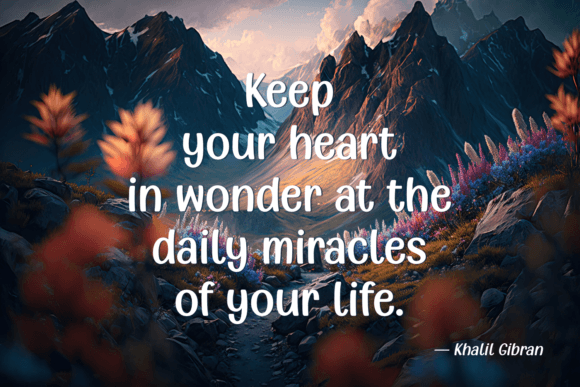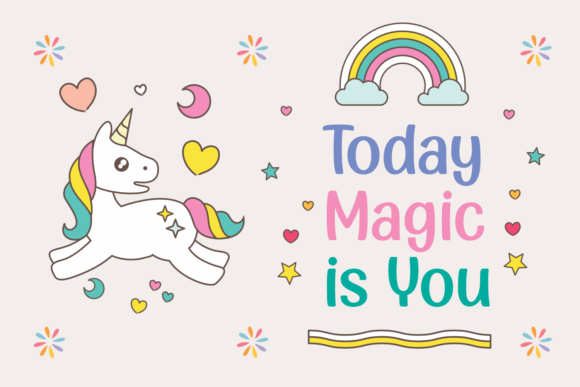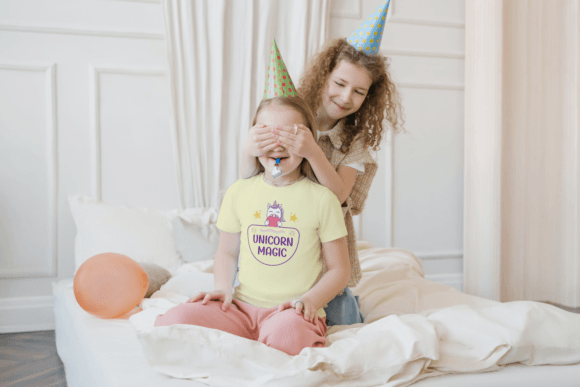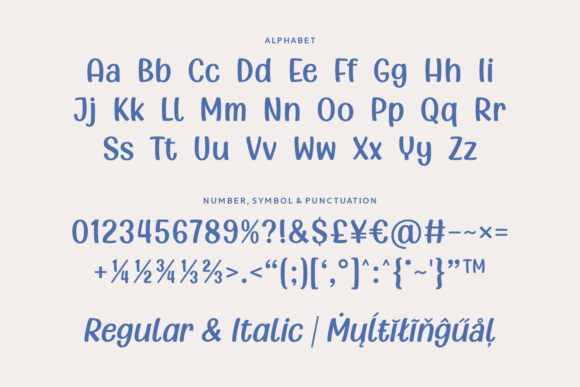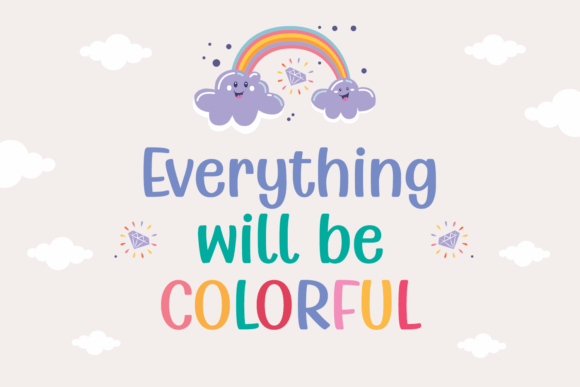
Introducing Daily Wonder Font: Adding a Playful Touch to Your Designs
Are you looking for a font that can add a special playful touch to your design ideas? Look no further than the Daily Wonder font! This beautifully crafted font is designed to bring a sense of playfulness and handmade charm to any project. In this article, we’ll take a closer look at the Daily Wonder font, its features, and how you can use it to take your designs to the next level.
A Playfully Handmade Font
The Daily Wonder font is a masterfully designed font that feels playfully handmade. Its unique and charming lettering style makes it perfect for adding a personal touch to your designs. Whether you’re working on a DIY project, a branding campaign, or a craft project, this font is sure to bring a smile to your face. The font’s playful feel is perfect for designers and crafters who want to add a touch of whimsy to their work.
The Daily Wonder font is incredibly versatile and can be used for a wide range of design projects. From greeting cards and invitations to branding and packaging, this font can add a special touch to any design idea you can think of. Its playful and handmade feel makes it perfect for:
- DIY projects and crafts
- Blog and website design
Masterfully Designed
The Daily Wonder font is designed to be a true favorite among designers and crafters. Its unique lettering style and playful feel make it a joy to use. The font is carefully crafted to ensure that it is easy to read and looks great in a variety of sizes and colors. Whether you’re working on a large-scale design project or a small craft project, this font is sure to become a go-to choice.
Bring Your Creative Ideas to Life
The Daily Wonder font has the potential to bring each of your creative ideas to the highest level. Its playful and handmade feel makes it perfect for adding a personal touch to your designs. With this font, you can:
- Create unique and eye-catching designs that stand out from the crowd
- Add a personal touch to your projects and make them more relatable
- Experiment with different design styles and ideas
- Bring a sense of playfulness and fun to your designs
Tips for Using Daily Wonder Font
Here are a few tips for using the Daily Wonder font in your designs:
- Experiment with different colors and sizes to find the perfect combination for your design
- Use the font to add a personal touch to your designs and make them more relatable
- Pair the font with other fonts and design elements to create a unique and eye-catching design
- Don’t be afraid to get creative and try new things – the Daily Wonder font is perfect for experimenting with different design styles and ideas
The Daily Wonder font is a beautifully crafted font that can add a special playful touch to any design idea you can think of. Its unique and charming lettering style makes it perfect for designers and crafters who want to add a personal touch to their work. With its endless design possibilities and masterfully designed style, this font is sure to become a true favorite among designers and crafters. So why not give it a try and see how you can use the Daily Wonder font to bring your creative ideas to life?